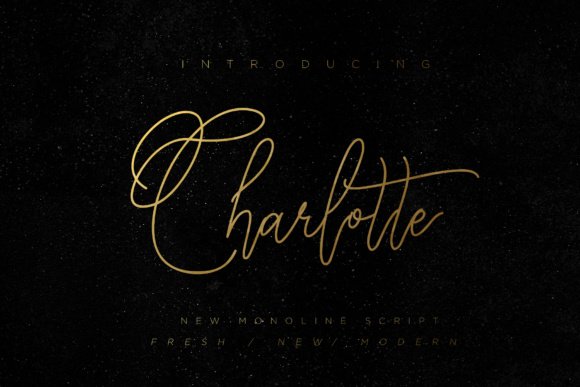
The Art of Elegant Design: Unveiling the Beauty of Charlotte Script Font
Have you ever stumbled upon a beautiful wedding invitation that caught your eye, and you couldn’t help but stop and admire the delicate script font used? For designers, it’s moments like these that spark creativity and inspire us to create something truly special. One font that stands out for its elegance and sophistication is the Charlotte Script Font.
This stunning font is perfect for adding a touch of whimsy and romance to your designs. With its Flourish uppercase letters, it’s ideal for creating beautiful wedding monograms and logos. Whether you’re designing wedding invitations, branding, packaging, or social media graphics, the Charlotte Script Font is a valuable asset in your design toolkit.
- Unique Characteristics: Elegant, cursive script with a classic feel, ideal for creative and elegant designs
Designer Review: Charlotte Script Font
As a designer, I’ve had the chance to work with the Charlotte Script Font, and I must say it’s a beautiful addition to any project. ✨ Its elegant, cursive design is perfect for creating a touch of sophistication and romance. The font is highly versatile, and its various weights and styles make it easy to use in a variety of contexts, from formal invitations to casual social media posts.
The Charlotte Script Font is also highly customizable, with options to adjust the spacing and letterforms to suit your specific needs. This level of control is a major plus, especially for designers who value precision and attention to detail. ✨ Additionally, the font is fully web-friendly, ensuring that your designs will look great across a range of devices and browsers.
- ⚠️ Limited support for some non-Latin scripts, which may be a concern for designers working with international clients or projects.
- ⚠️ May not be suitable for large blocks of text, as its script design can make reading more challenging.
- ⚠️ Requires a good understanding of font pairing and balance, as its elegance can easily be overpowered by other fonts.
The Charlotte Script Font is a lovely addition to any designer’s toolkit. While it may have some limitations, its versatility, customizability, and elegance make it a great choice for a wide range of projects. With the right design approach, this font can help create truly stunning and memorable designs.
For the best results, use the Charlotte Script font in combination with elegant graphics and subtle colors.
It’s also a good idea to use the font in a large size to make it stand out.
Experiment with different font combinations to create a unique look.
The Charlotte Script font is perfect for creating elegant invitations, wedding stationery, and other special occasion graphics.
It’s also great for adding a touch of sophistication to your logo or branding materials.